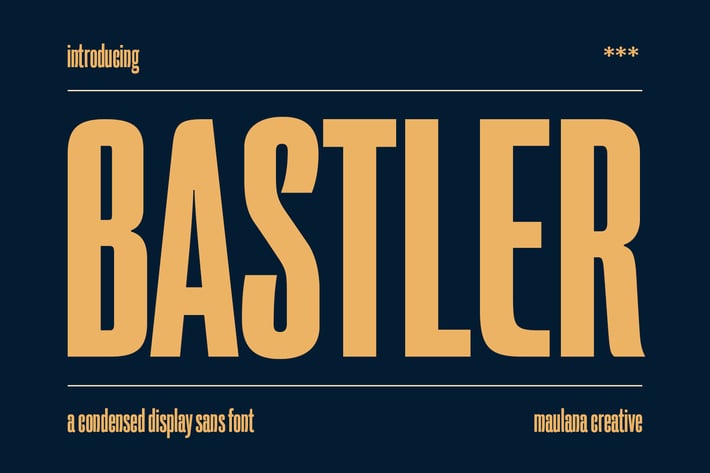
Bastler Condensed Sans Display Font
Bastler is a Condensed Display Sans font. Regular stroke, fun character with a bit of ligatures and alternates. To give you an extra creative work. Bastler font support multilingual more than 100+ language. This font is good for logo design, Social media, Movie Titles, Books Titles, a short text even a long text letter and good for your secondary text font with script or serif. Make a stunning work with Bastler font.